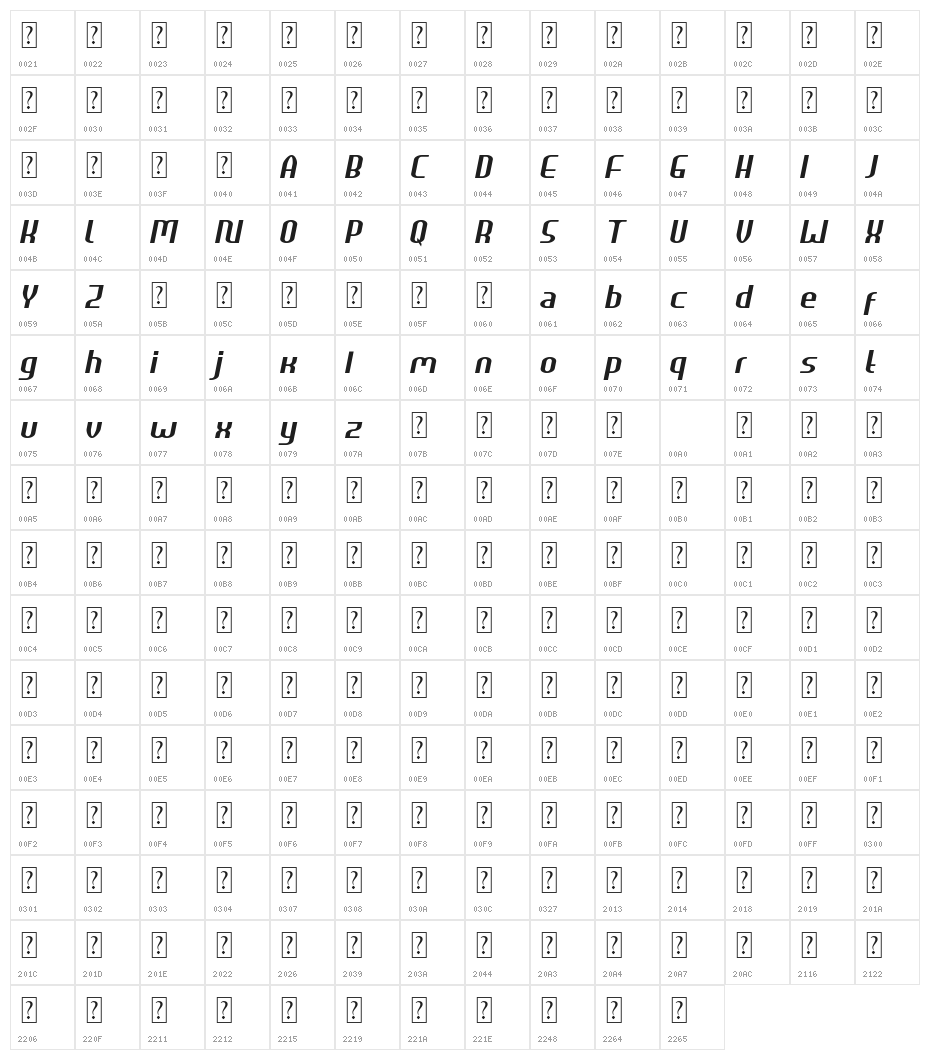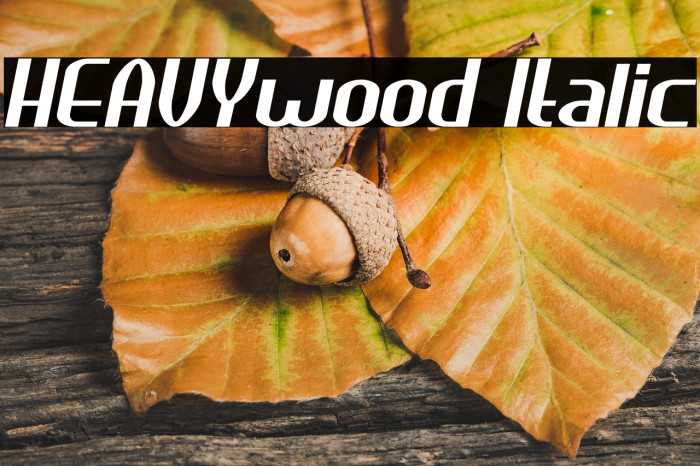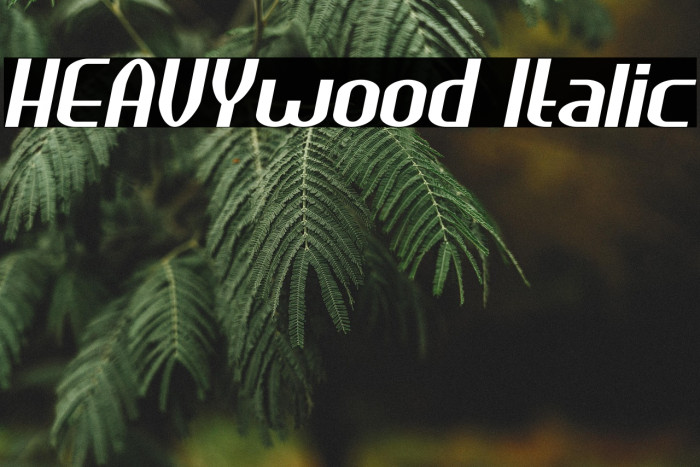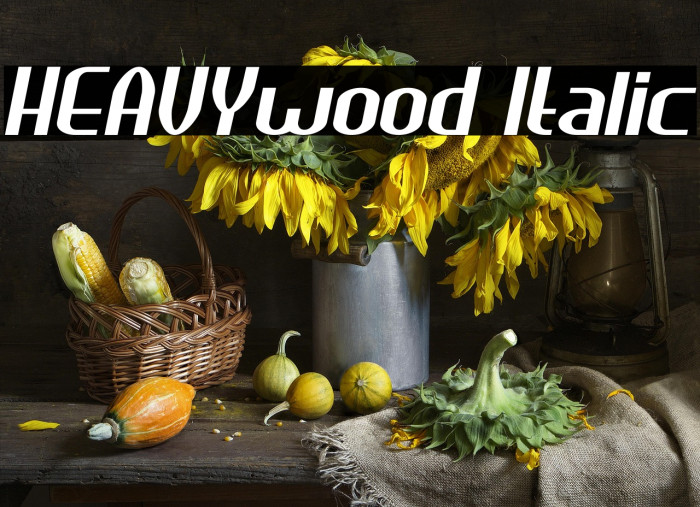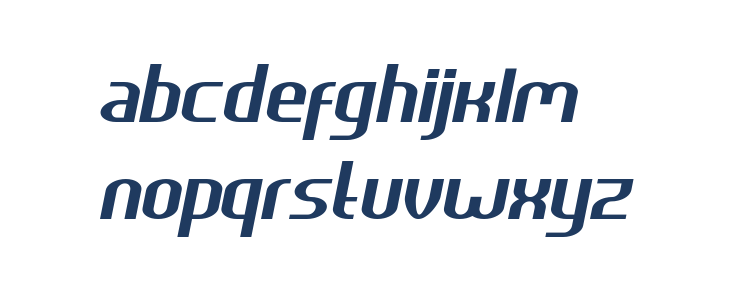
HEAVYwood Italic Font
HEAVYwood Italic Description
This font features a bold and dynamic italic style, characterized by its strong, angular lines and slightly condensed form. The uppercase letters exhibit a modern flair with sharp edges and a forward-leaning posture, while the lowercase letters maintain a consistent slant, enhancing the font's sleek appearance. The numerals are designed to match the overall aesthetic, providing a cohesive look across all characters. The font's unique style makes it suitable for projects that require a contemporary and assertive touch.
| Proposed Projects | Ideal for branding, advertising, and editorial design where a modern and assertive look is desired. |